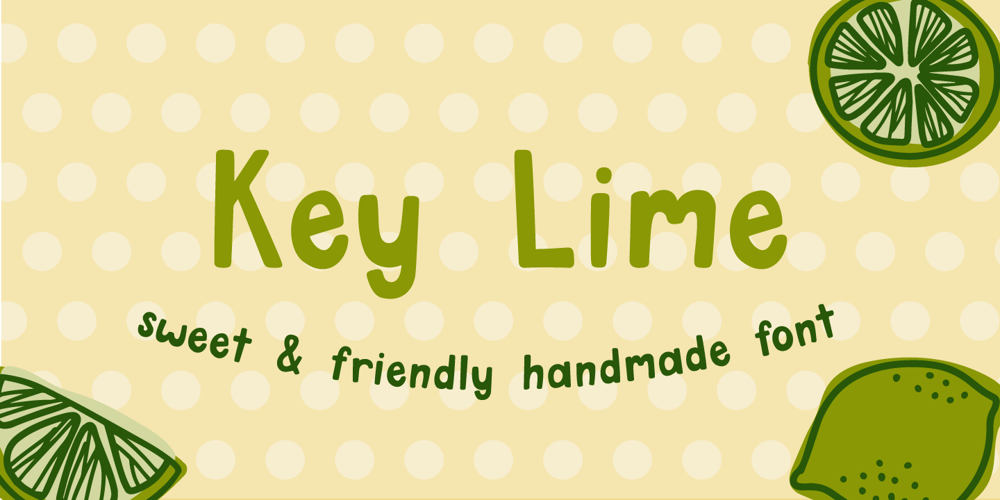
Key Lime Font Family was designed by Kellie McDonald and published by Kellie Jayne Studio. Key Lime contains 2 styles and family package options. Key Lime is a sweet and friendly handmade typeface! I carefully drew and then digitally edited the characters. It is inspired heavily by children’s books and toys. Key Lime is easy-going, unique, and still easy to read.